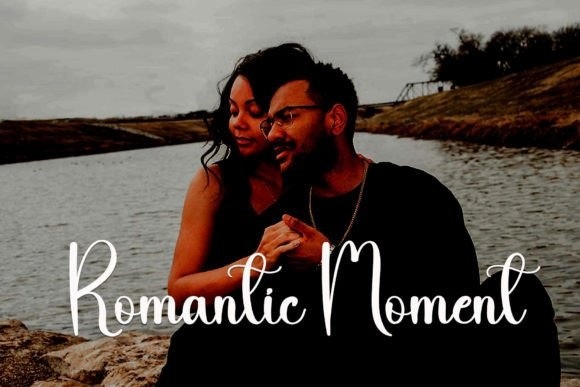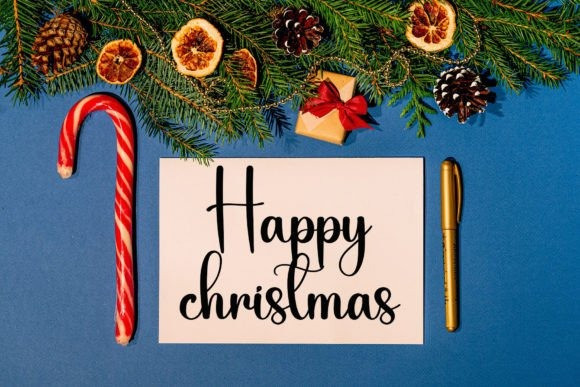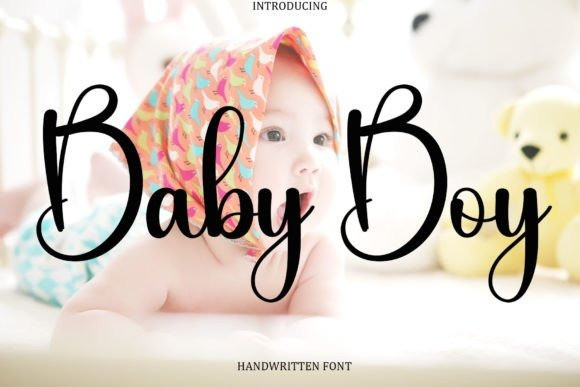
Baby Boy Font
Baby Boy Font is a sweet and beautiful handwritten font. Featuring characters that dance along the baseline, this font will add a luxury spark to any design project you wish to create!